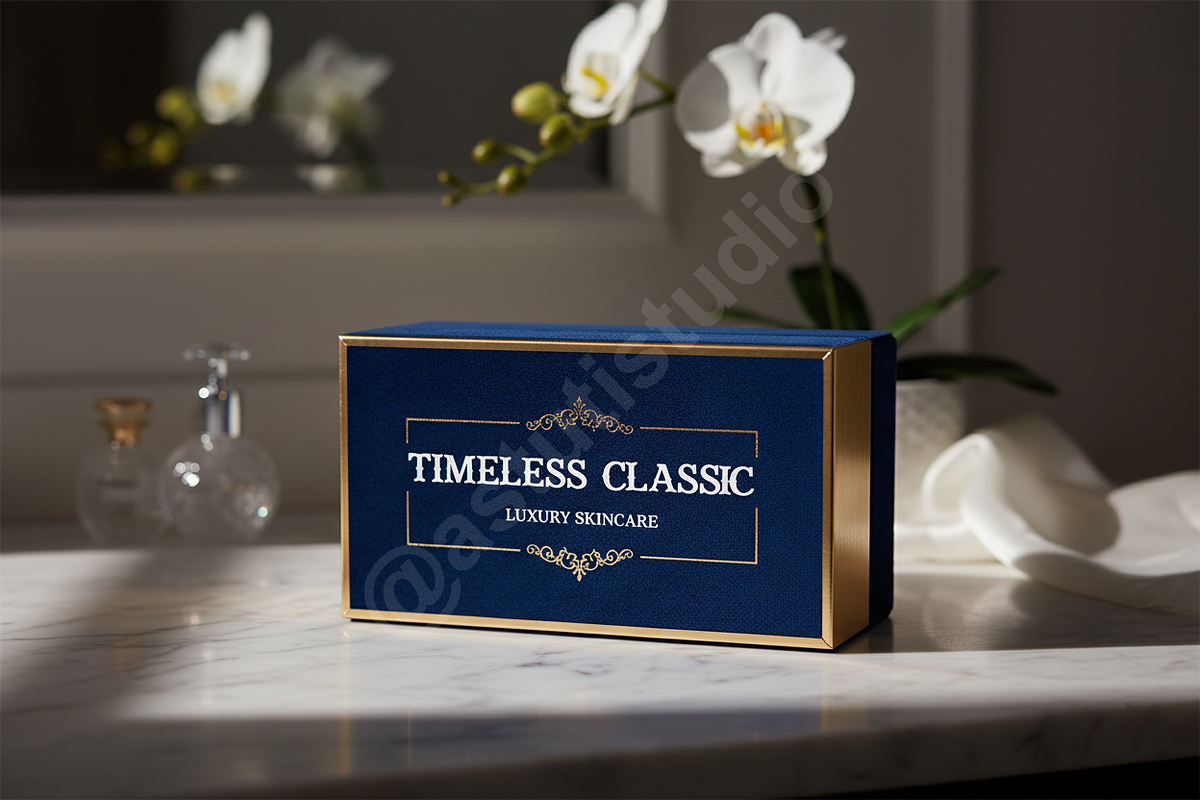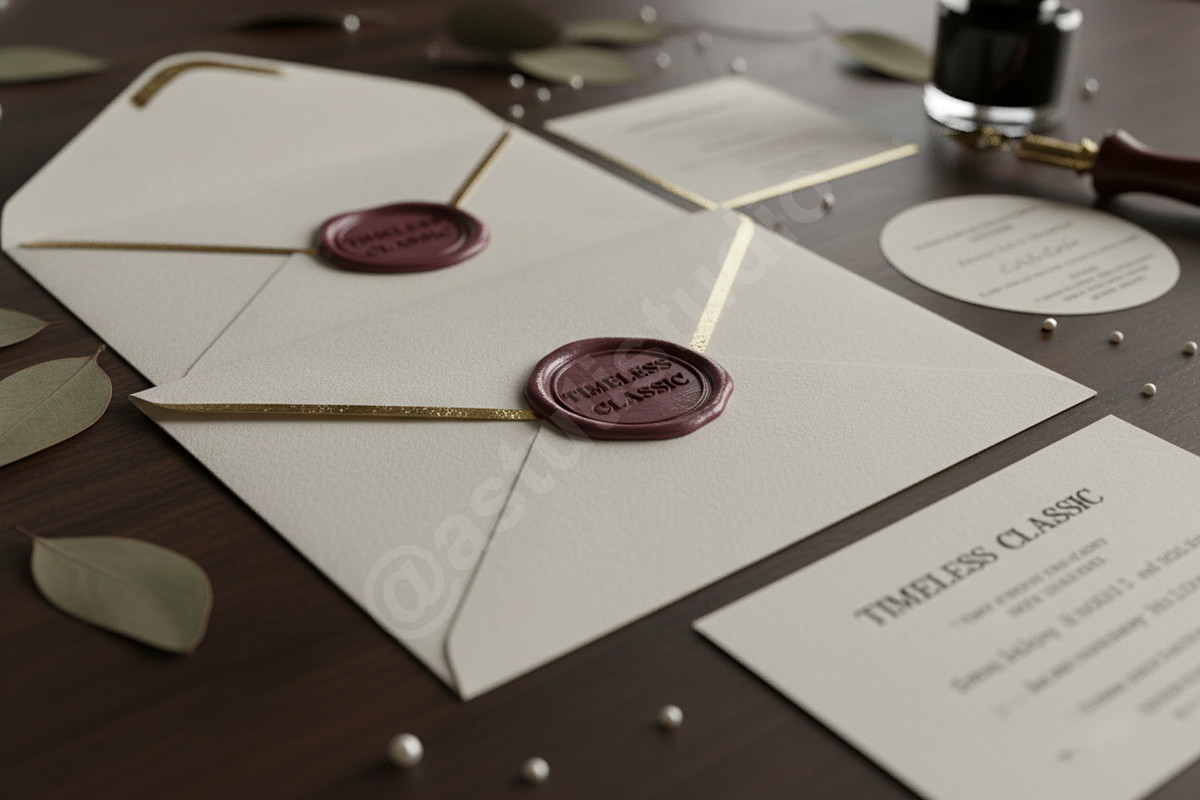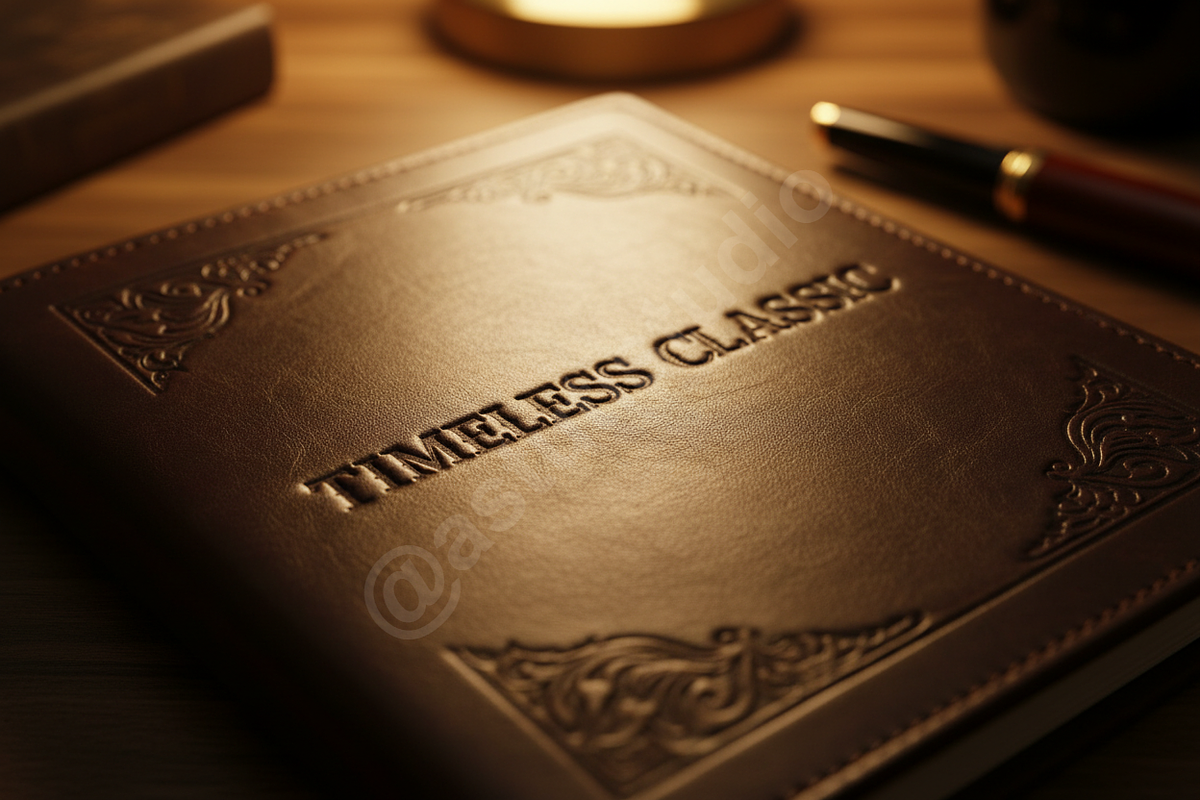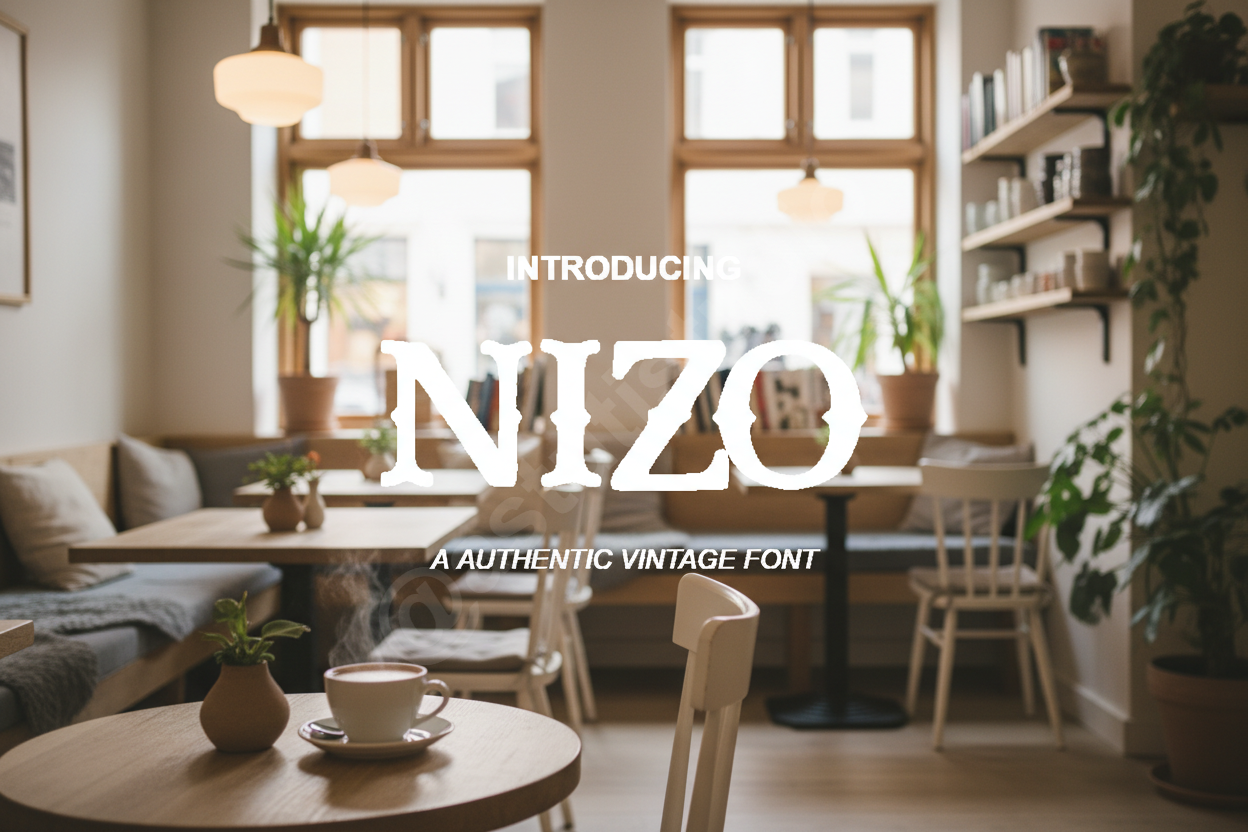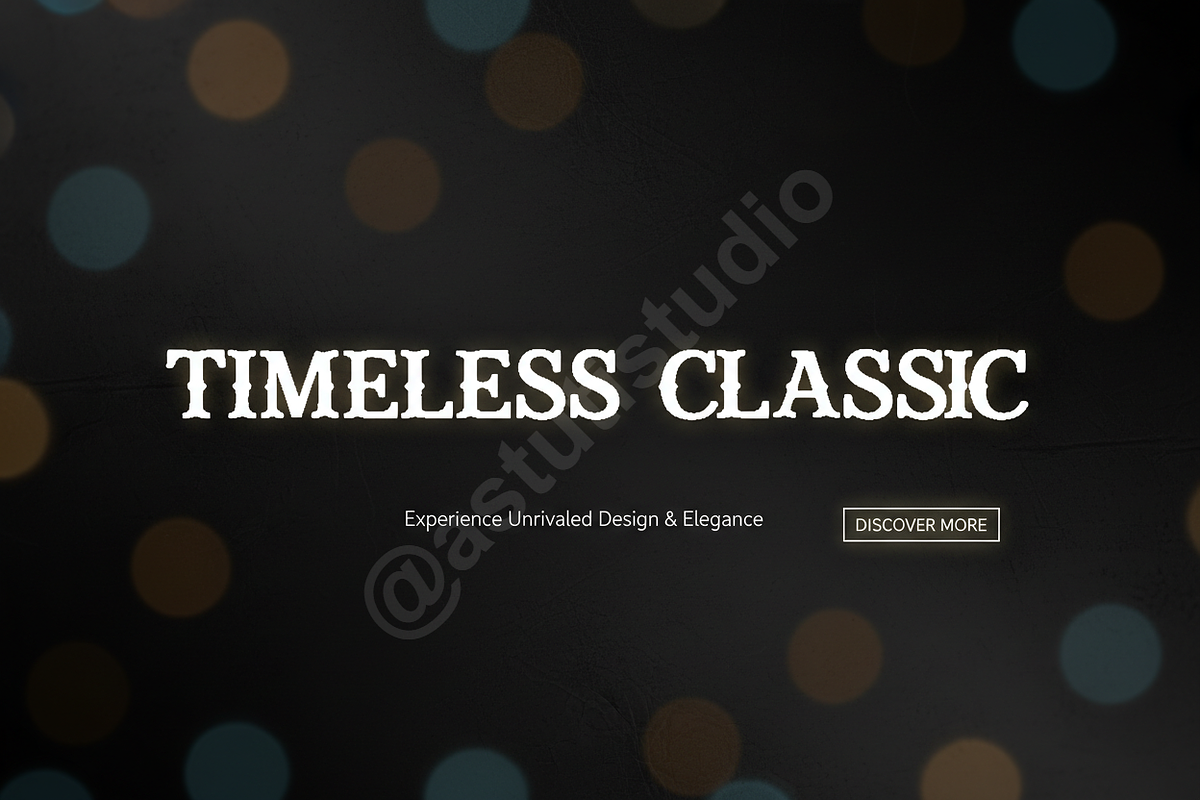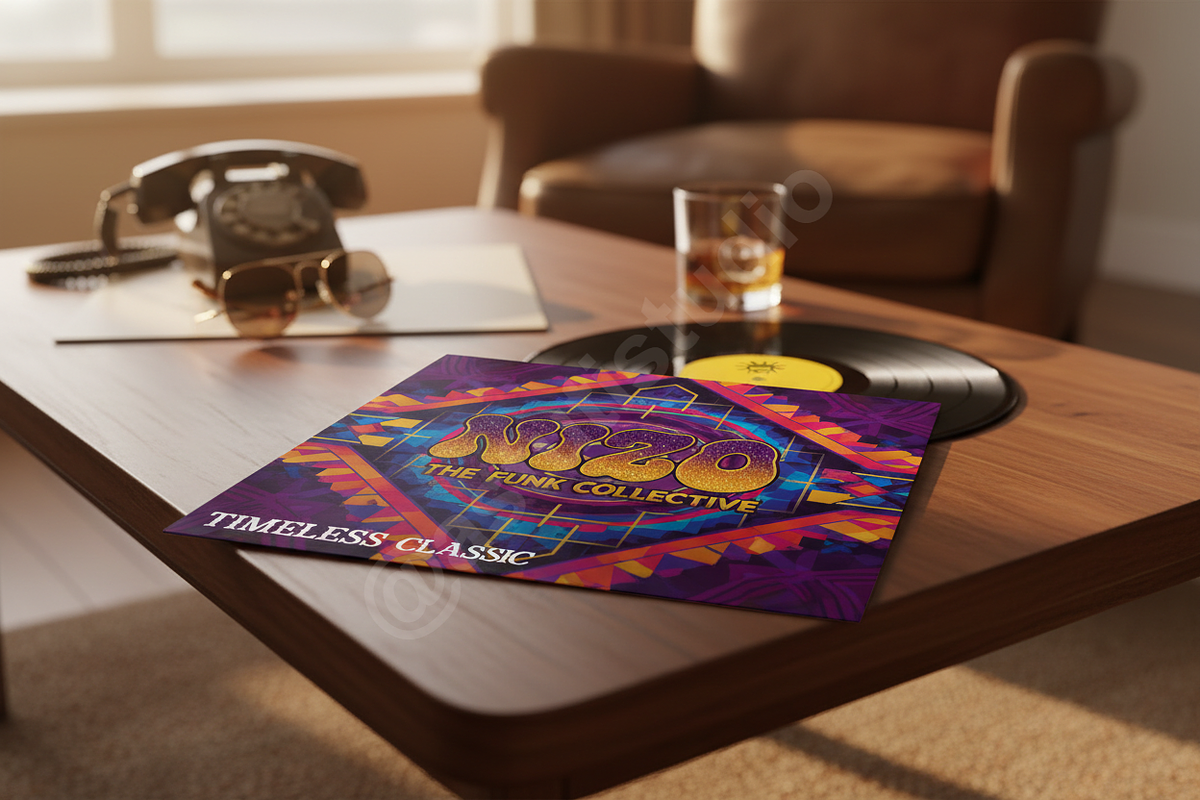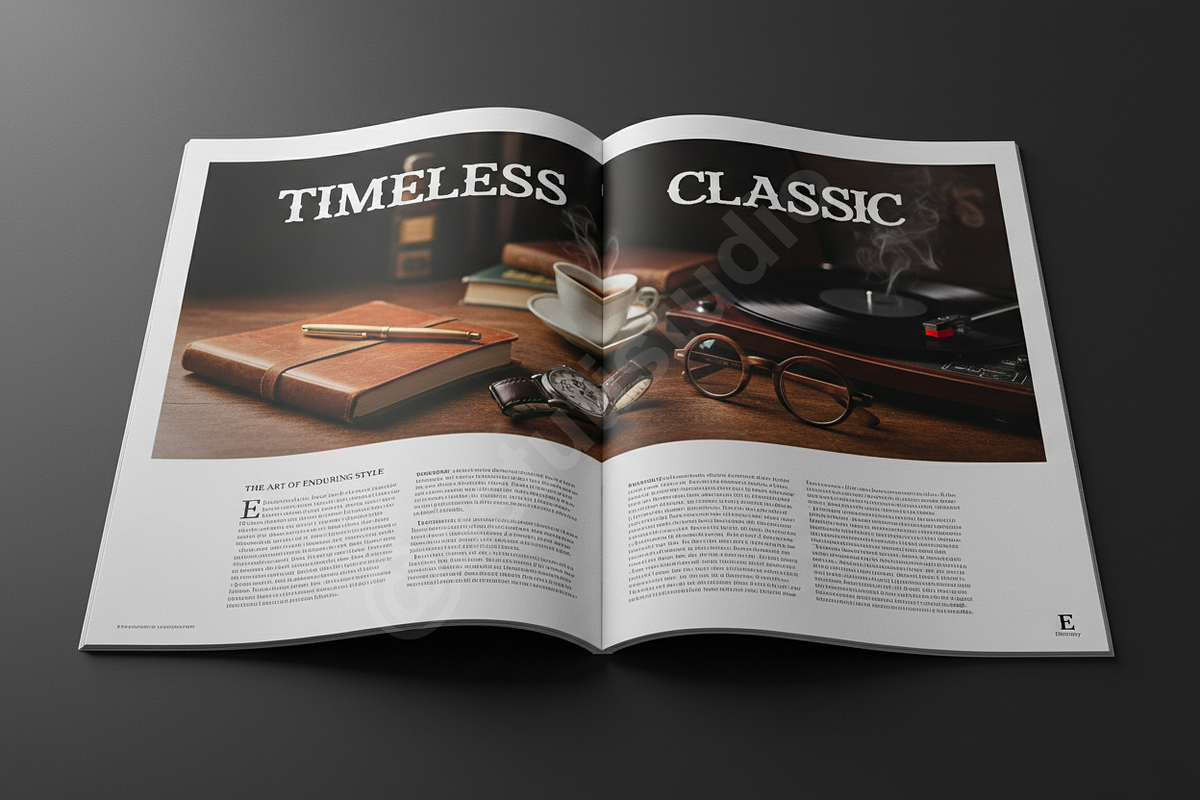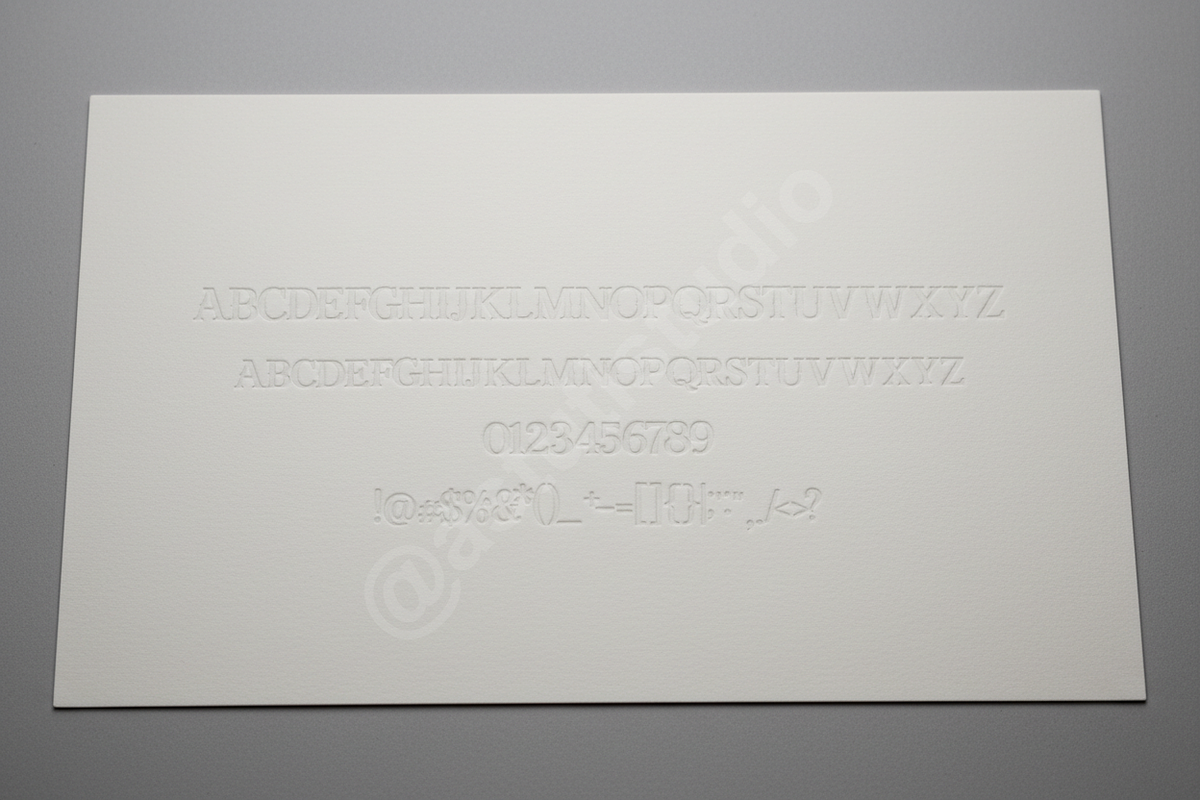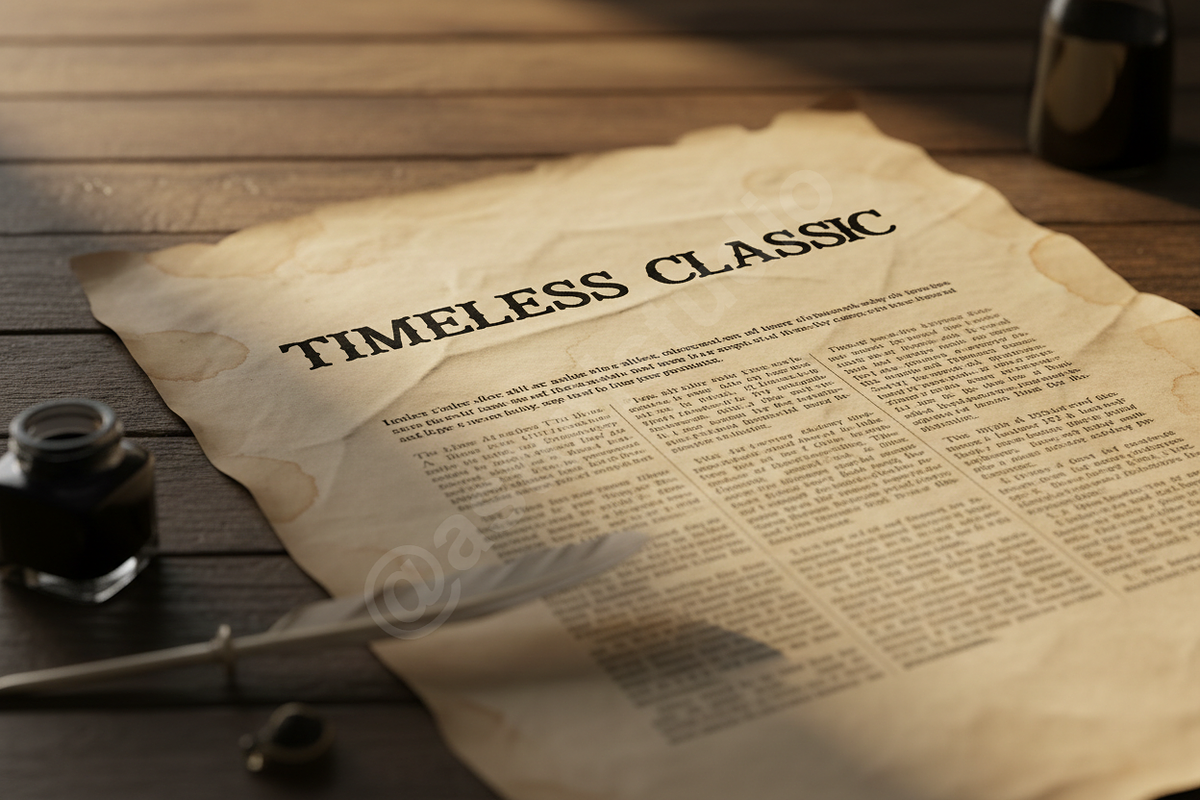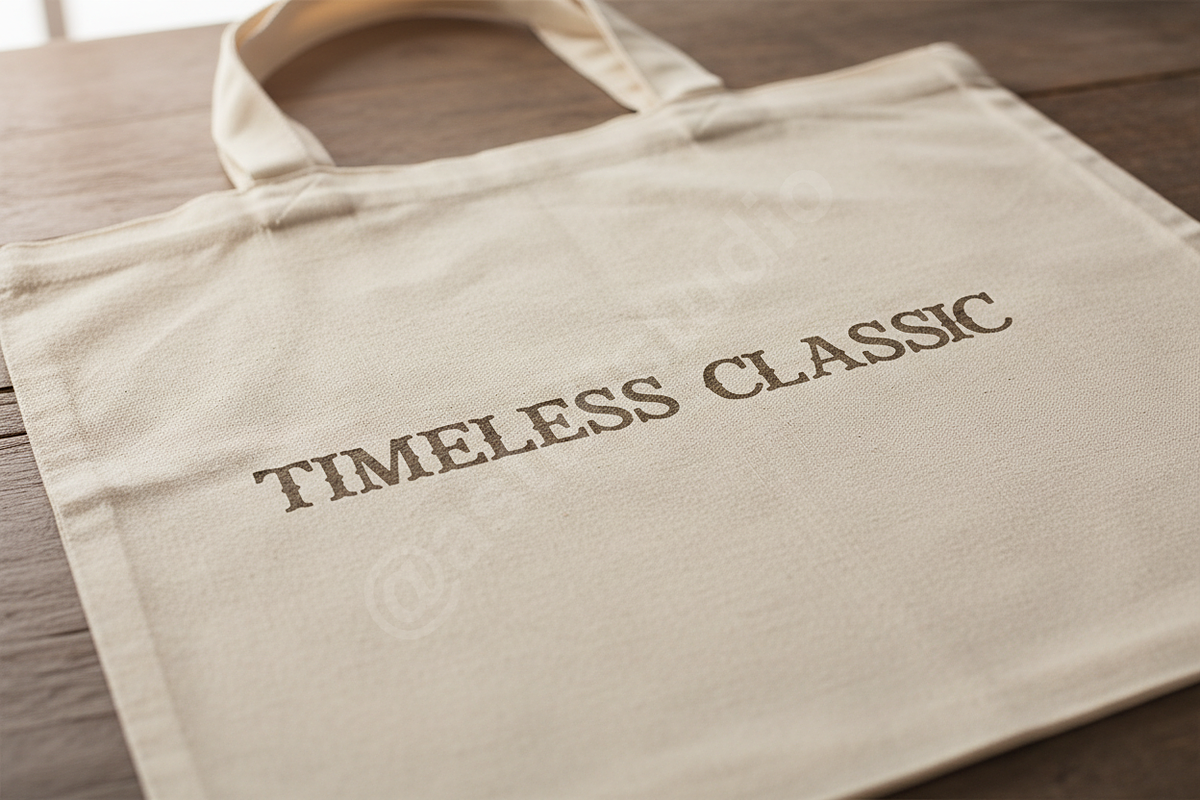
Nizo - Elegant Sans Serif Typeface
INTRODUCTION Nizo is a premium sans-serif typeface meticulously crafted for high-end aesthetics. With its balanced proportions and refined curves, Nizo brings a touch of modern elegance to any creative project. It is the ideal choice for designers seeking a sophisticated look for luxury branding, high-fashion editorial layouts, and impactful social media presence. Whether you are designing a sleek logo or a minimalist magazine spread, Nizo provides the clarity and style required for professional results.
- Clean, minimalist aesthetic with geometric balance
- High-contrast letterforms for a refined appearance
- Optimized kerning for professional readability
- Versatile performance across digital and print media
- Suited for luxury packaging, web headers, and corporate identities
- Full uppercase and lowercase character sets
- Numbers, punctuation, and standard symbols
- Multilingual support for Western European languages